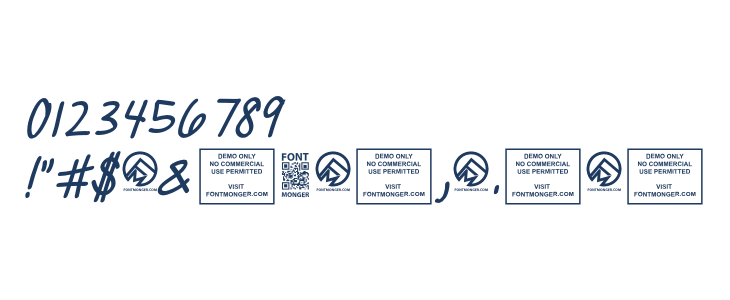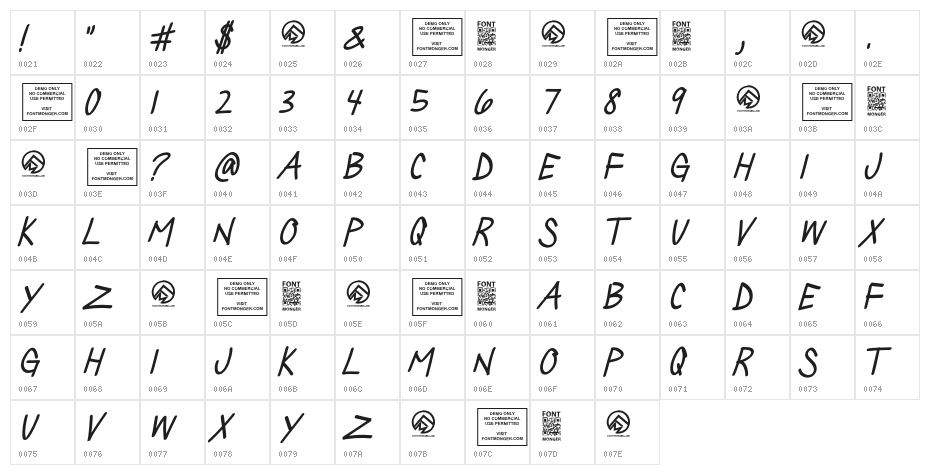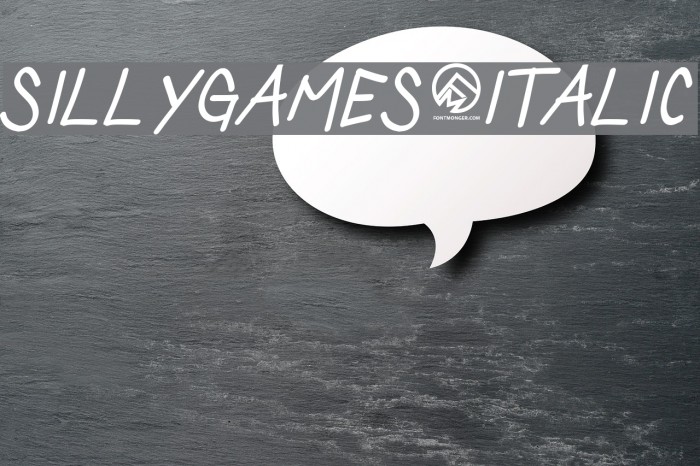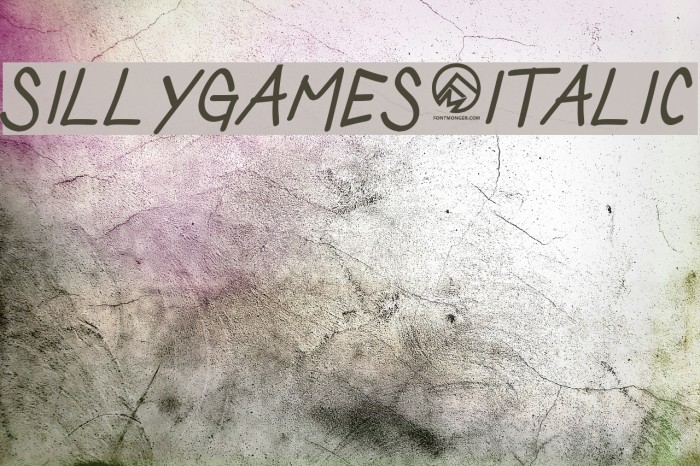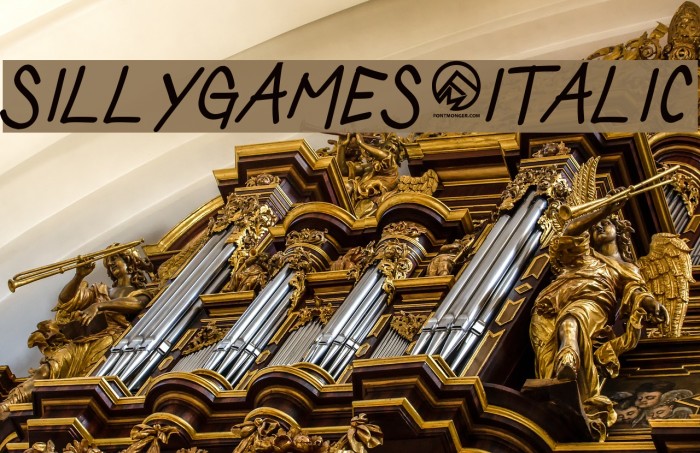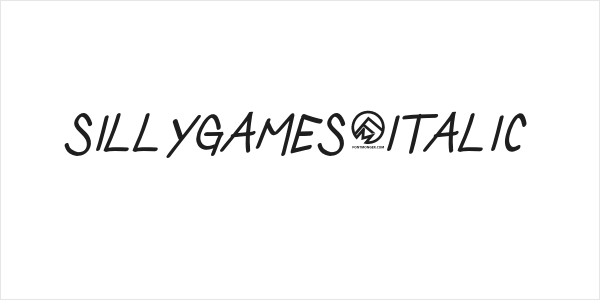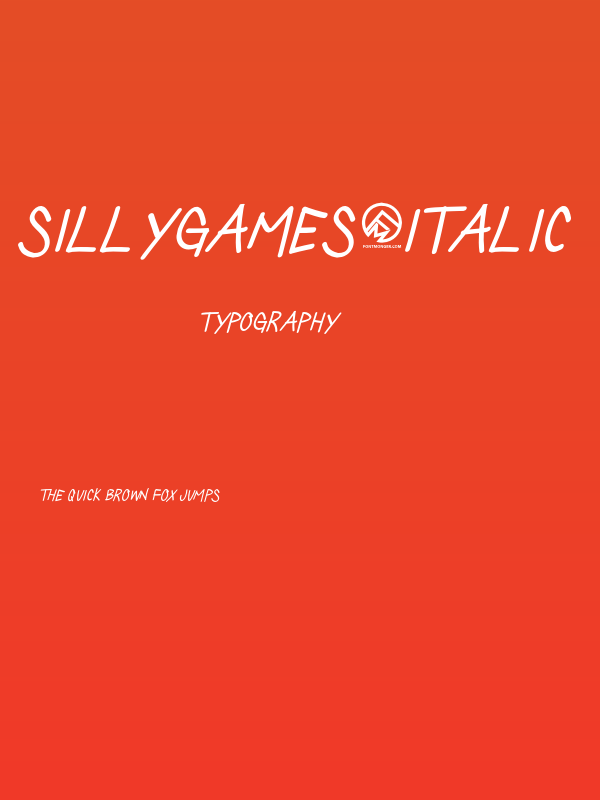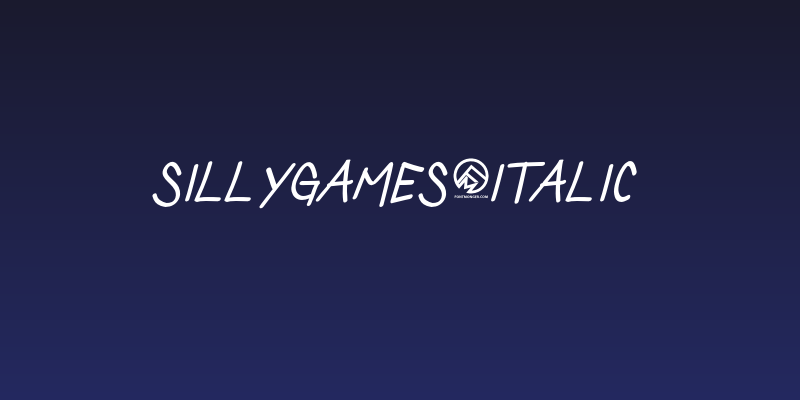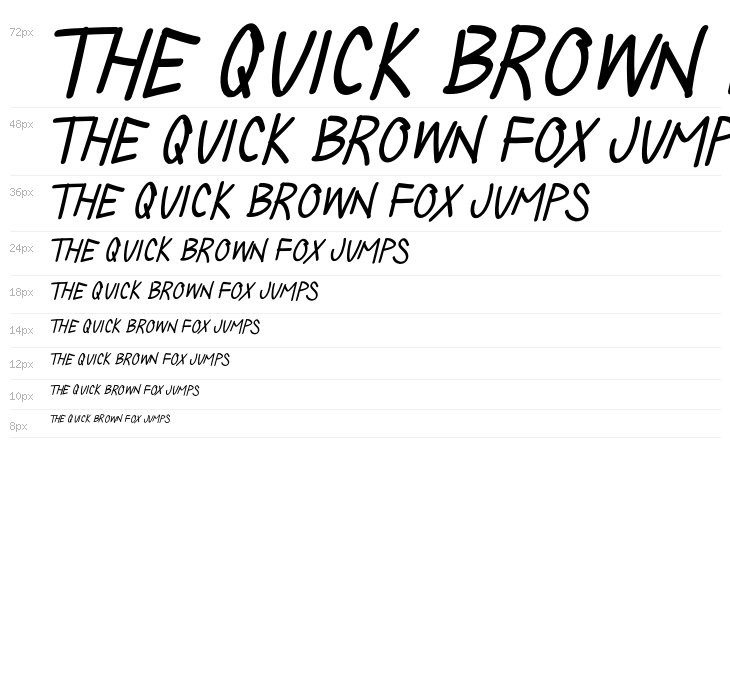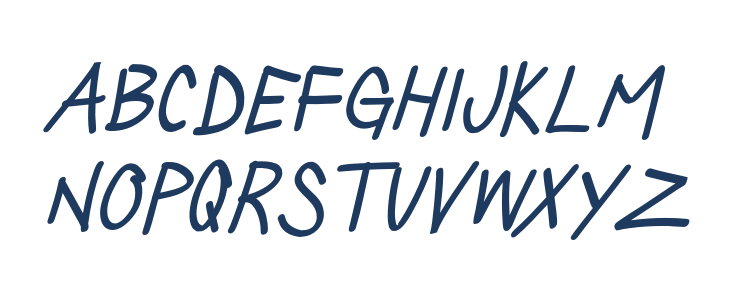
SillyGames-Italic Font
SillyGames-Italic Description
This playful and dynamic font features a handwritten style with a casual and informal appearance. The letters are slightly slanted, giving it an italicized look, and the strokes are smooth and flowing, reminiscent of a quick, confident penmanship. The font maintains a consistent stroke width throughout, providing a uniform and cohesive look. The characters are well-spaced, ensuring readability while retaining a lively and energetic feel. This font is perfect for projects that require a personal touch or a sense of spontaneity and creativity.
| Proposed Projects | Ideal for greeting cards, invitations, personal branding, and creative projects that require a casual and friendly tone. |